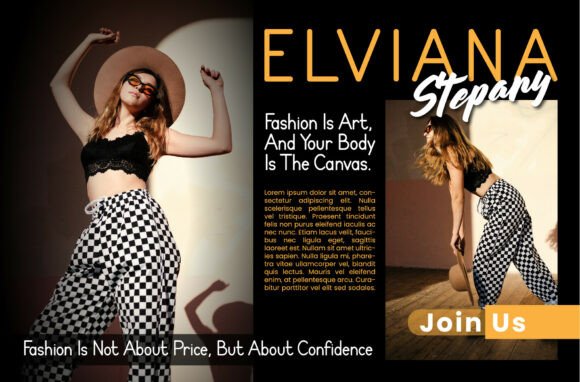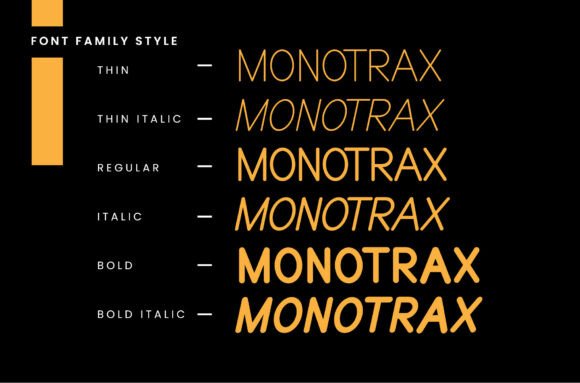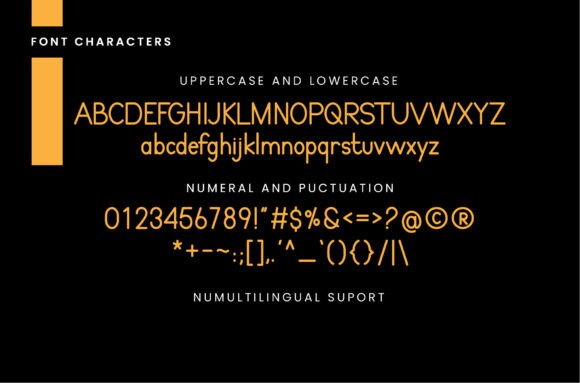
Introduction to Monotrax Font
Monotrax is a monoline sans serif font with a clean, uncluttered, and modern character.
| 👤 Author | JprintStudio |
Designed with consistently thin lines, this font conveys a minimalist yet professional feel, suitable for a variety of design needs Monotrax is ideal for use in logos, headlines, branding, posters, editorials, and digital designs due to its simple yet elegant appearance.
Key Features of Monotrax Font
Why Choose Monotrax Font?